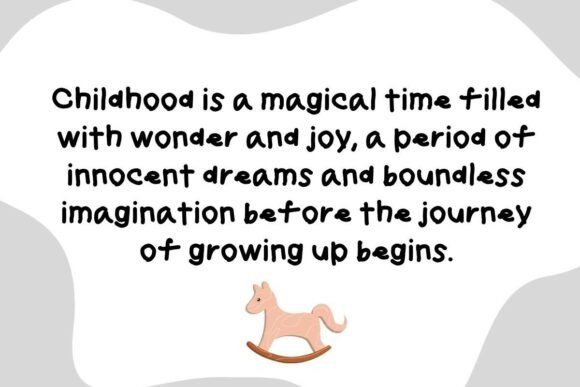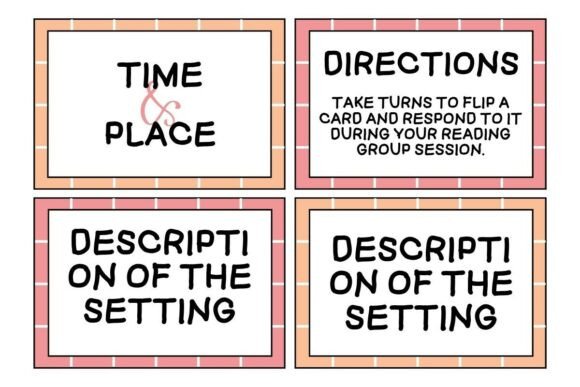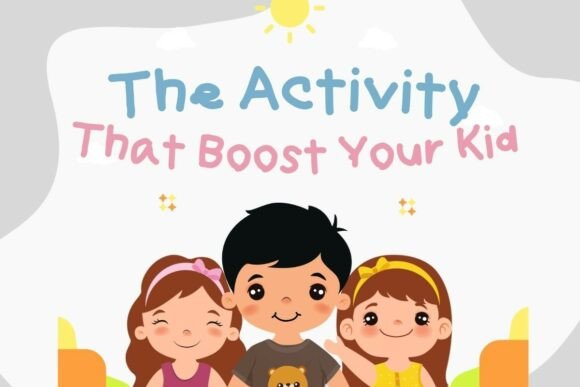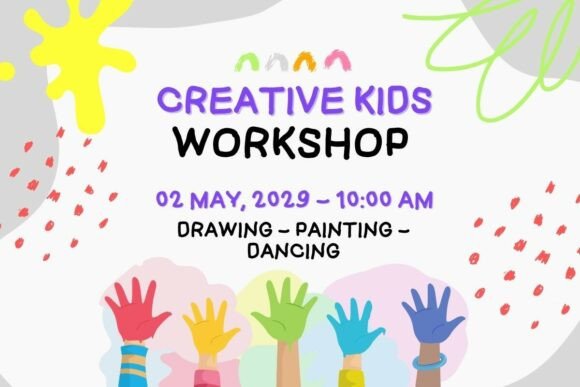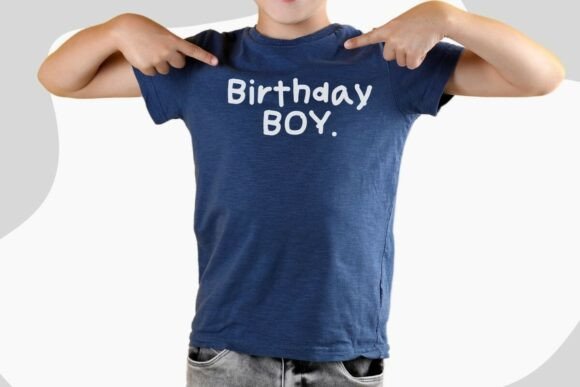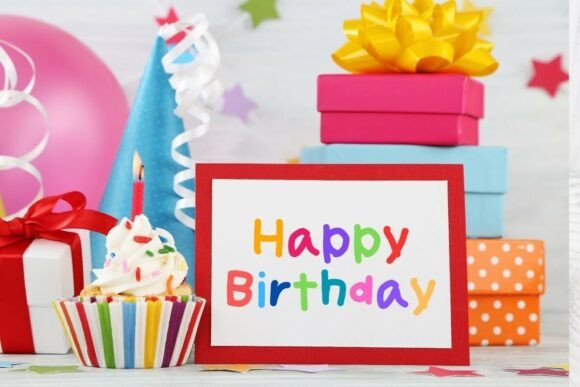
Unleash Your Creativity with the Good Boy Font
Have you ever been in the middle of a design project, and suddenly, you’re stuck on finding the perfect font? I remember working on a preschool craft project for a client, and no matter how hard I searched, I couldn’t find a font that captured the playful, joyful essence I was looking for. That was until I stumbled upon the Good Boy Font. In this article, we’ll dive into the world of this adorable handwritten font, and explore how it can bring a touch of childhood charm to your work.
The Good Boy Font: A Personal Review
I’ve had the pleasure of working with the Good Boy Font on several projects, and I’m excited to share my honest review with you. Here’s what I love about this font:
- ✨ Playful and joyful personality: The Good Boy Font is designed to bring a sense of childhood wonder to your work. Its soft, friendly strokes and irresistibly cute style make it perfect for preschool crafts, kids’ projects, and school activities.
- ✅ Versatility: This font is not limited to just one type of project. You can use it for artwork, branding, invitations, digital content, and more.
- 💕 Emotional connection: The Good Boy Font has a way of evoking emotions and creating a connection with your audience. It’s perfect for projects that require a personal touch.
While the Good Boy Font is an amazing addition to any design project, there are a few quirks to keep in mind:
- 🤔 Limited use in formal designs: Due to its playful nature, the Good Boy Font may not be the best choice for formal designs or projects that require a more professional tone.
- ⚠️ Glyph limitations: Some users have reported that the font could benefit from more glyphs and special characters.
A Practical Guide to Using the Good Boy Font
The Designer Inspiration Behind the Good Boy Font
The Good Boy Font was designed with the intention of capturing the charm and innocence of childhood. The designer wanted to create a font that would bring a sense of joy and playfulness to creative projects. Inspired by the world of preschool crafts and kids’ projects, the Good Boy Font is the perfect addition to any design project that requires a personal touch.
| What type of projects is the Good Boy Font best suited for? | The Good Boy Font is perfect for preschool crafts, kids’ projects, school activities, and creative designs of all kinds. |
| Is the Good Boy Font available in different languages? | The Good Boy Font may not be available in all languages, but it can be used with many languages that support the Latin alphabet. |